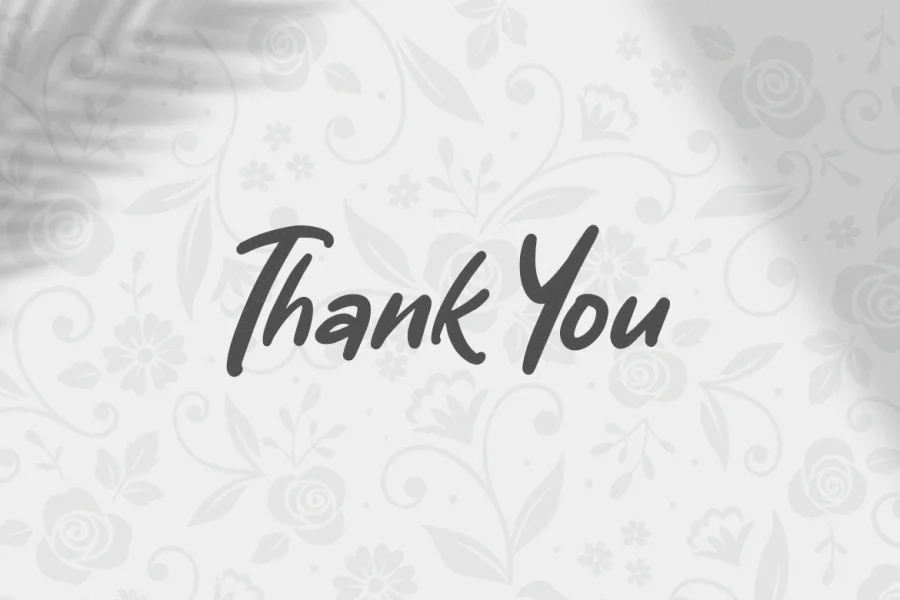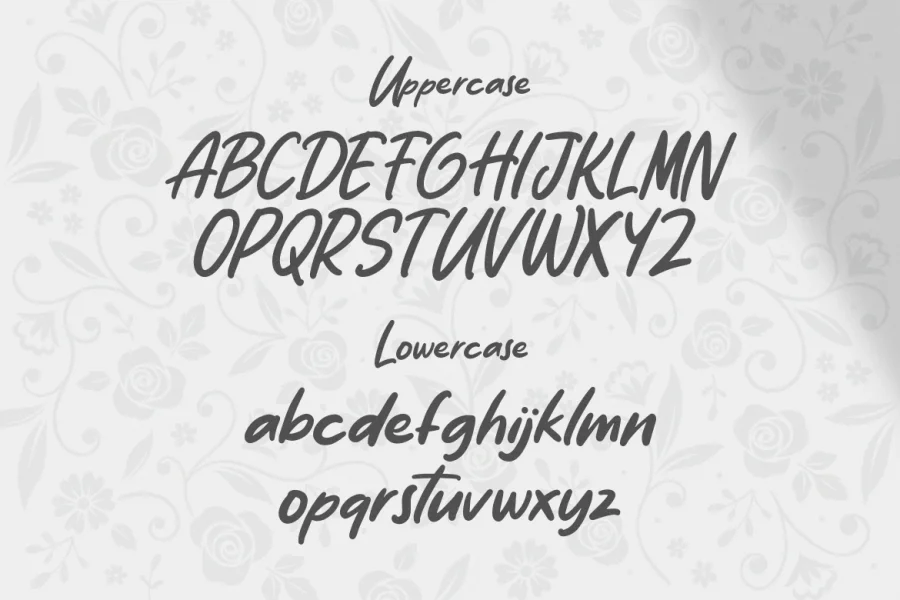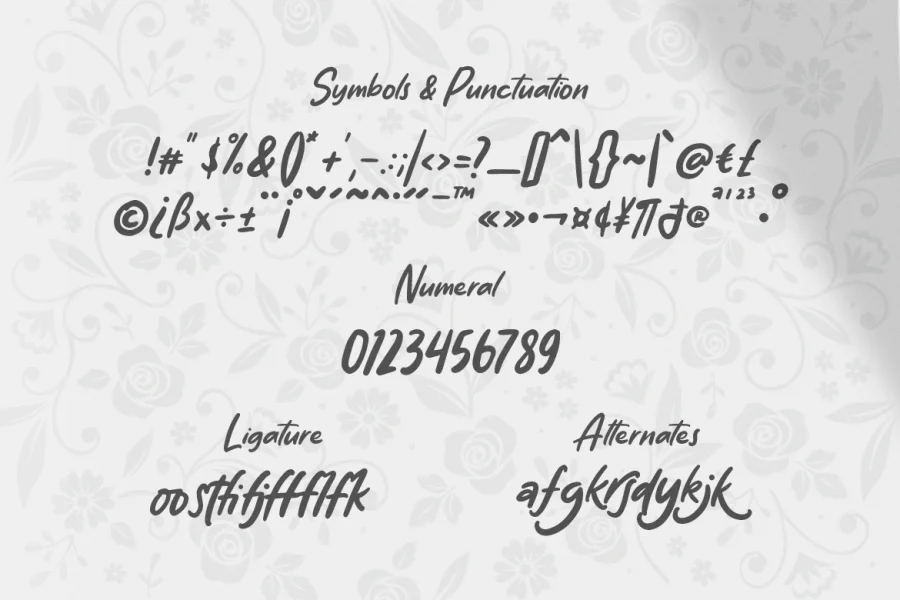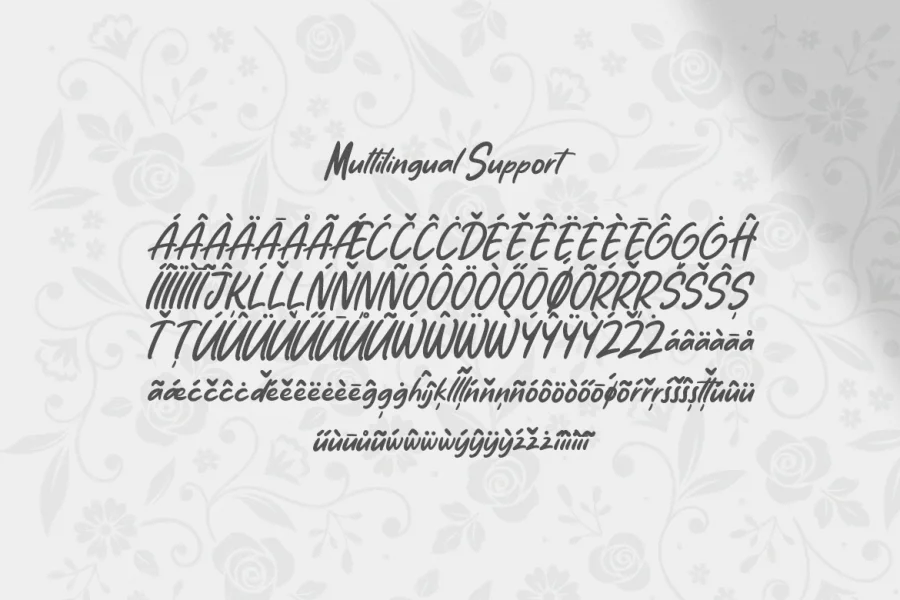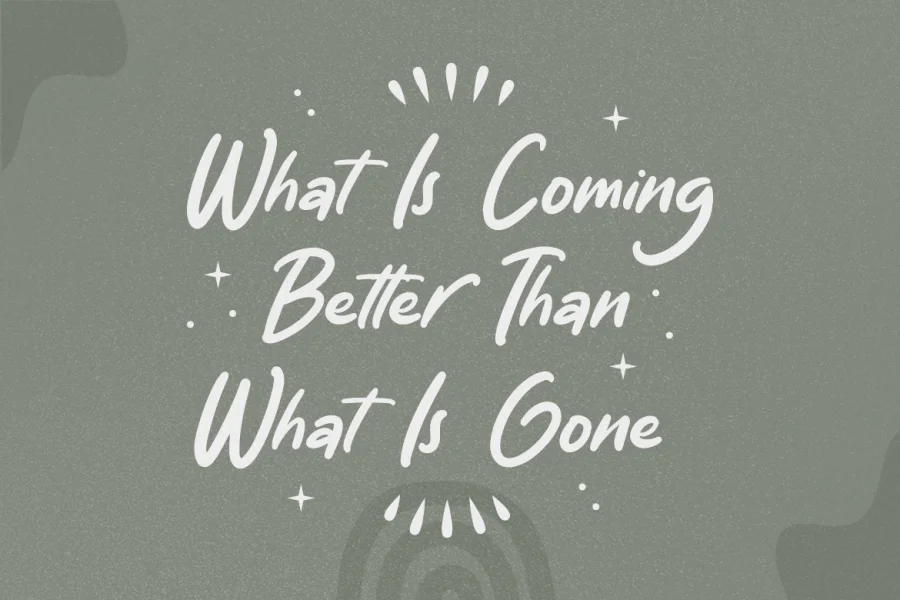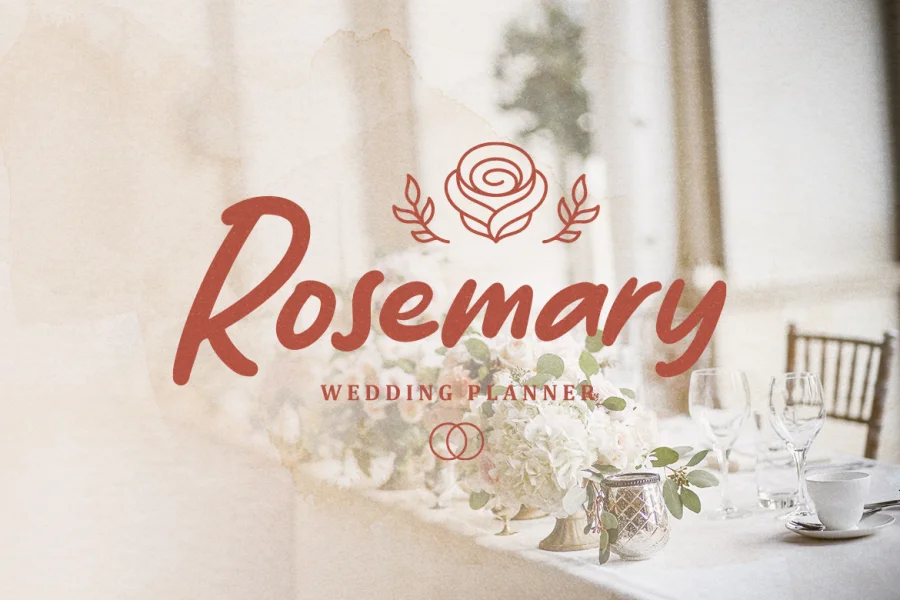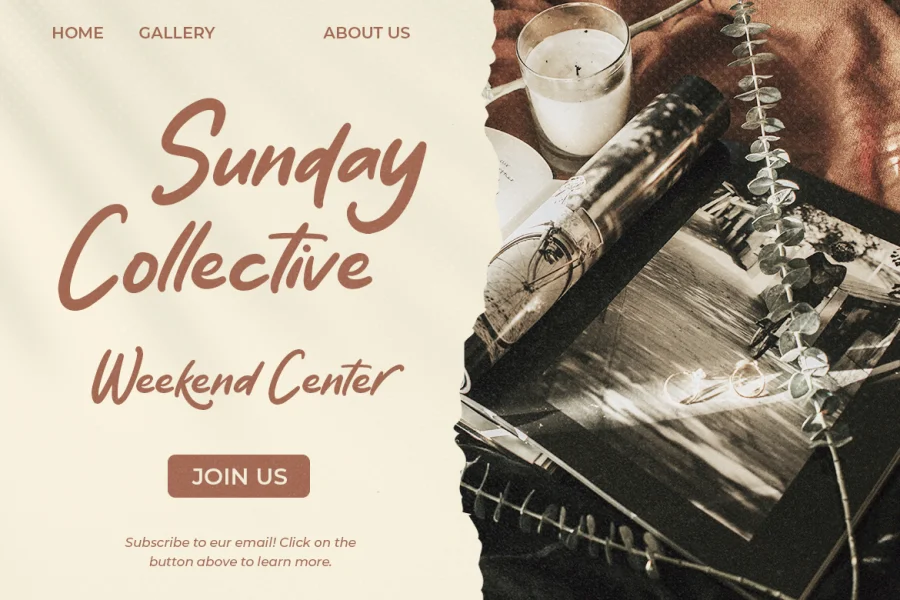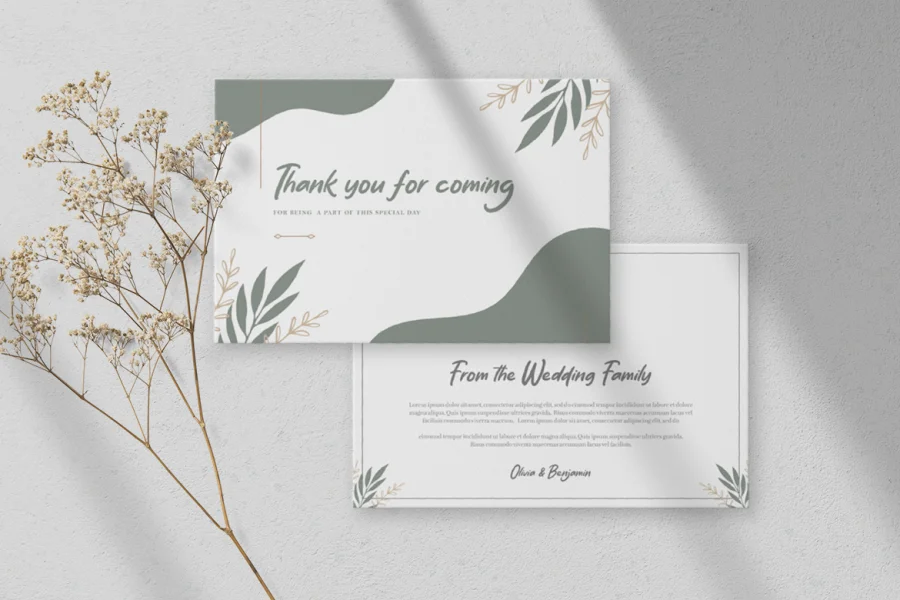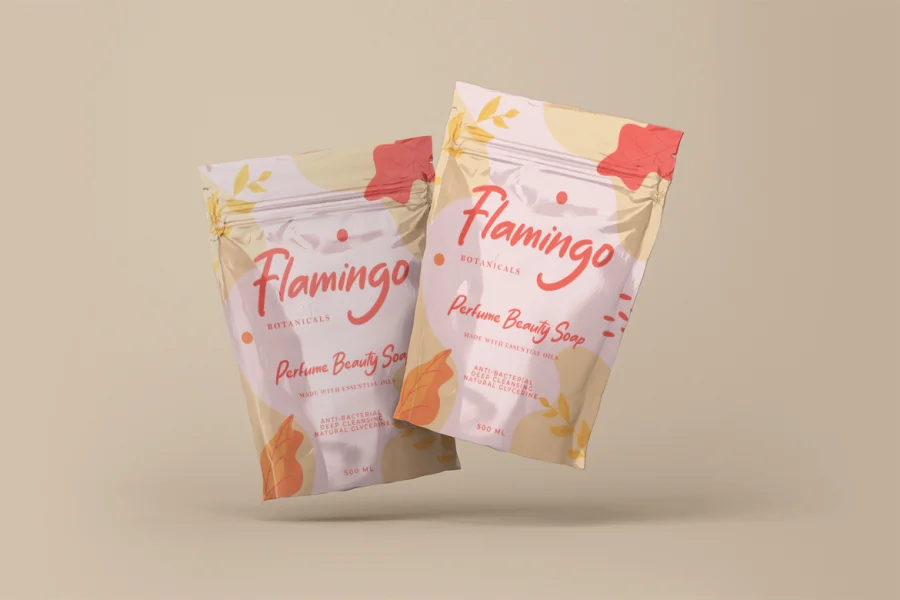
On My Way is a classy, sweet and lovely fancy font. It has a elegant style and is perfect for creating original designs.
This lovely hand drawn font is really great for a logo, clothing, quotes, headings, wedding invitations, posters, branding and many others.